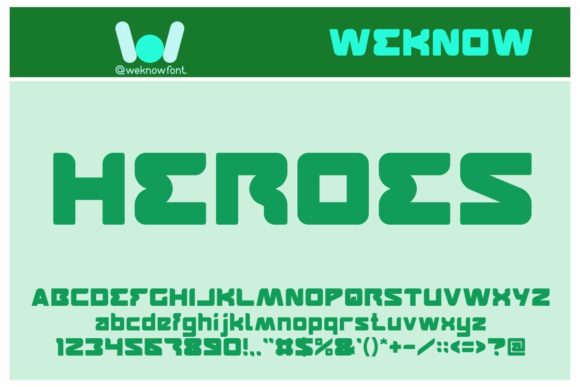
Monster Font with Black Background: A Bold Design Choice
A Typeface That Commands Attention
When you first see Monster Font with Black Background, the impact is immediate. This isn't just another typeface—it's a design statement that balances modern aesthetics with undeniable presence. The font's thick, geometric letterforms create a sense of solidity and confidence, while the black background setting amplifies its visual weight. It feels contemporary without being trendy, bold without being aggressive. For designers and creatives working on projects that need to stand out, this combination offers something genuinely useful: a tool that grabs attention while maintaining clean readability.
What makes this font particularly interesting is its versatility within the display category. While many display fonts sacrifice legibility for style, Monster Font maintains enough clarity to work across multiple applications. The letter spacing is generous, the x-height is substantial, and the overall proportions feel balanced. These characteristics mean you can use it at large scales for headlines and logos without worrying about the text becoming difficult to read. It's the kind of typeface that works equally well on a concert poster, a tech startup's landing page, or a premium product label.
Where This Font Truly Shines
In practical terms, Monster Font with Black Background excels in situations where you need to establish hierarchy quickly. Think about a magazine cover where the main headline needs to dominate the page, or a website hero section that should immediately communicate the brand's personality. The font's modern display characteristics make it particularly effective for:
The black background setting isn't just aesthetic—it's functional. This presentation style helps designers visualize how the font performs in high-contrast environments, which is crucial for applications like digital interfaces, signage, or print materials with dark color schemes. When you see Monster Font against black, you immediately understand its weight and presence in real-world conditions.
Making Strategic Font Choices
Choosing a display font like Monster Font requires thinking beyond just aesthetics. Consider how it fits within your broader design system. Does it complement your body text font? Does it align with your brand's personality? For most projects, you'll want to pair this bold typeface with something more neutral for longer text. A clean sans-serif font often works well, creating contrast while maintaining cohesion. Some designers successfully pair it with a simple serif font for projects that need a touch of tradition mixed with modernity.
Before committing to any premium font, test it thoroughly. Try it at different sizes, check how it renders on various screens, and see how it looks in your specific color combinations. The beauty of Monster Font with Black Background is that it's designed to perform well in challenging visual conditions, but you should always verify this with your actual content. Pay special attention to letter spacing in your specific words—some combinations might need manual kerning adjustments for perfect results.
Practical Considerations for Implementation
For web design, consider how the font loads and performs. While display fonts add personality, they shouldn't compromise page speed. Many designers use Monster Font selectively for key headlines while using system fonts or highly optimized web fonts for body text. This approach gives you the visual impact where it matters most without sacrificing performance.
Building Recognition Through Typography
Consistent use of a distinctive typeface like Monster Font can significantly strengthen brand recognition. When audiences see the same font repeatedly across different touchpoints—website, social media, printed materials—they begin to associate that visual style with your brand. This is why choosing the right typeface matters so much in brand identity work. It becomes part of your visual language, communicating your brand's personality before people even read the words.
The modern typography movement has given us more creative font options than ever, but this abundance can be overwhelming. What sets Monster Font with Black Background apart is its clear purpose and execution. It knows what it is—a bold, contemporary display typeface—and it delivers on that promise without trying to be everything to everyone. For designers and business owners, this clarity is valuable. You know exactly what you're getting and can make informed decisions about where and how to use it.